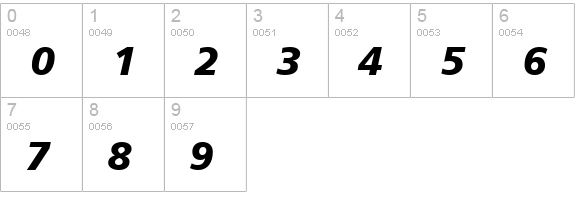
AG Foreigner Bold Italic Font Details
AG Foreigner Bold Italic is a strong, high-contrast, italic variant in the AG typeface family \xE2\x80\x94 well suited to headlines, attention-grabbing titles, and strong calls-to-action.
AG Foreigner Bold Italic font is a striking and modern typeface that adds a touch of sophistication to any design project. Its bold and italic characteristics make it stand out, perfect for creating eye-catching headlines or emphasis in text. With its unique style, AG Foreigner Bold Italic font exudes confidence and elegance. And the best part? This font is available for free download at FontsMarket.com, allowing you to easily access and use this stunning typeface in your projects without any hassle. Don't miss out on adding AG Foreigner Bold Italic font to your font collection today!